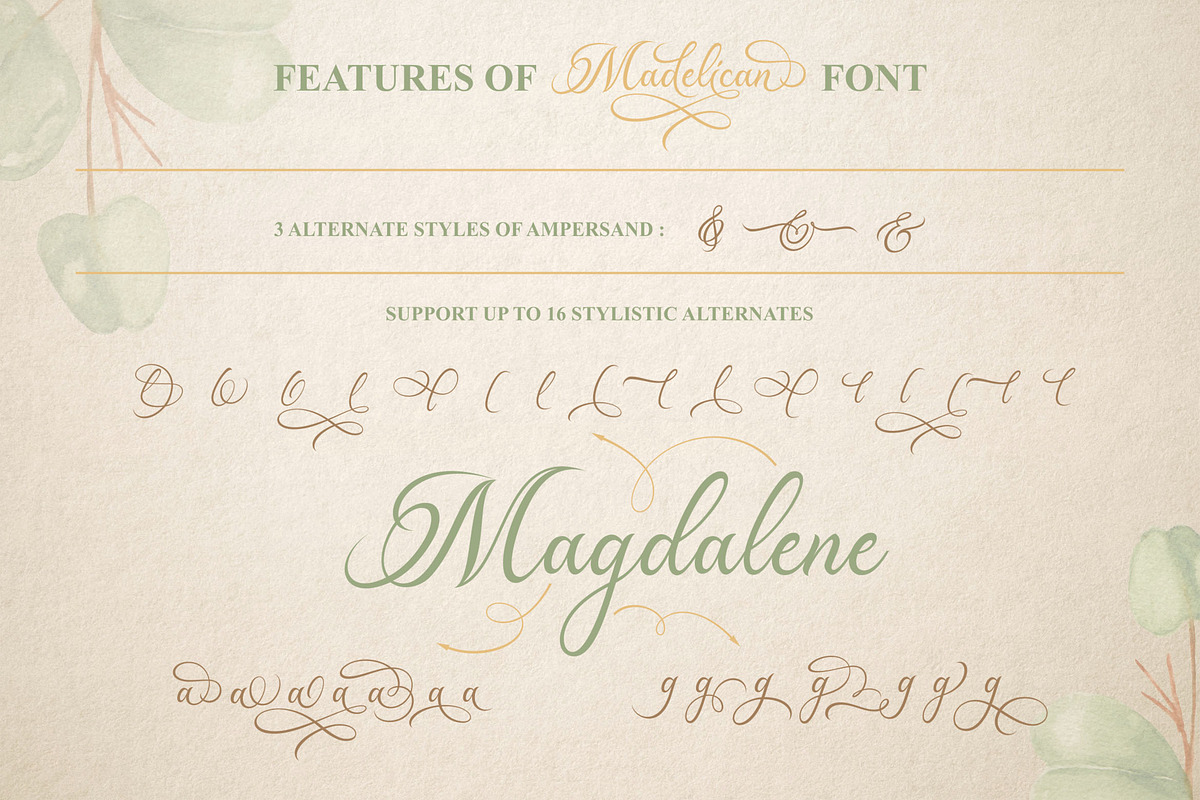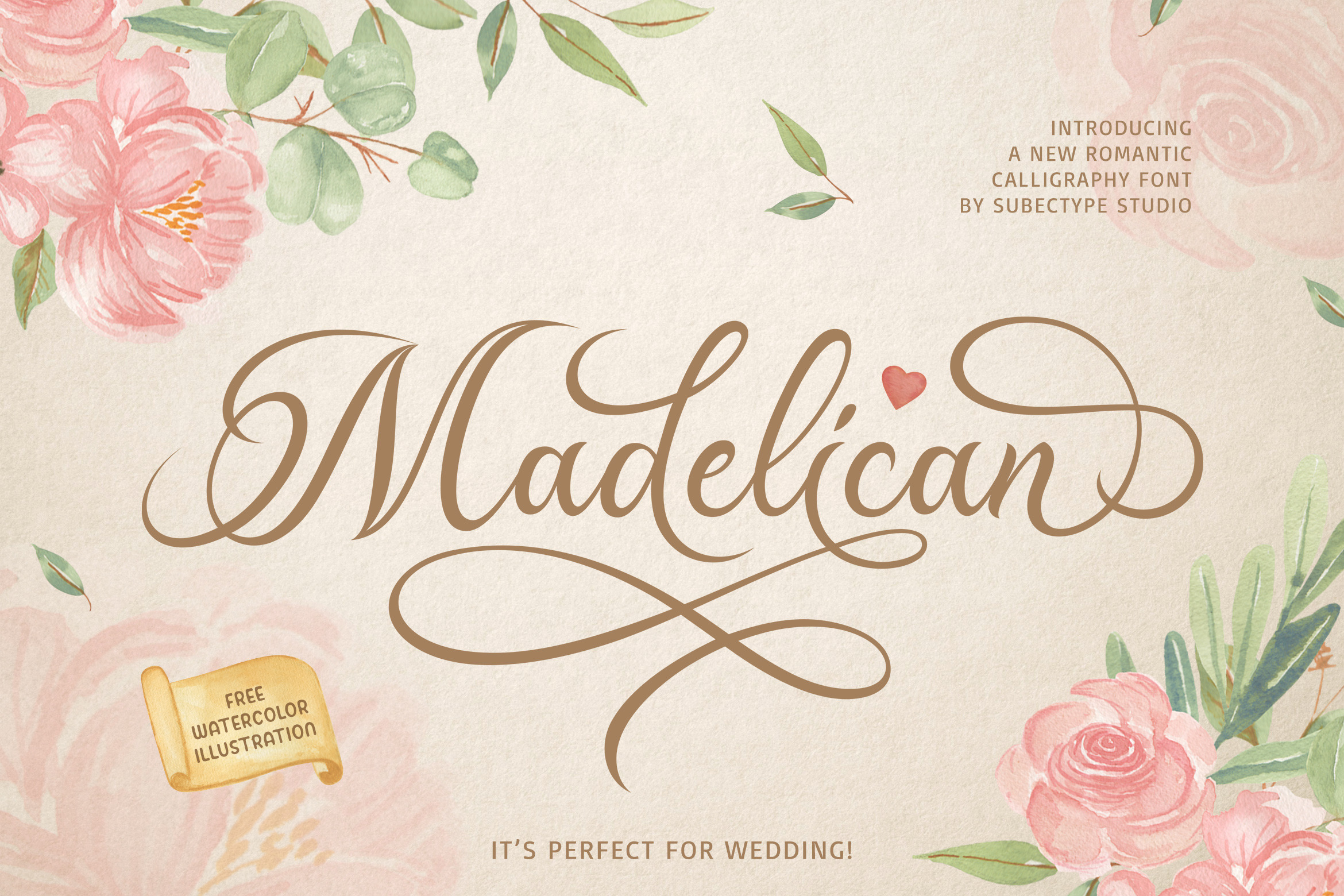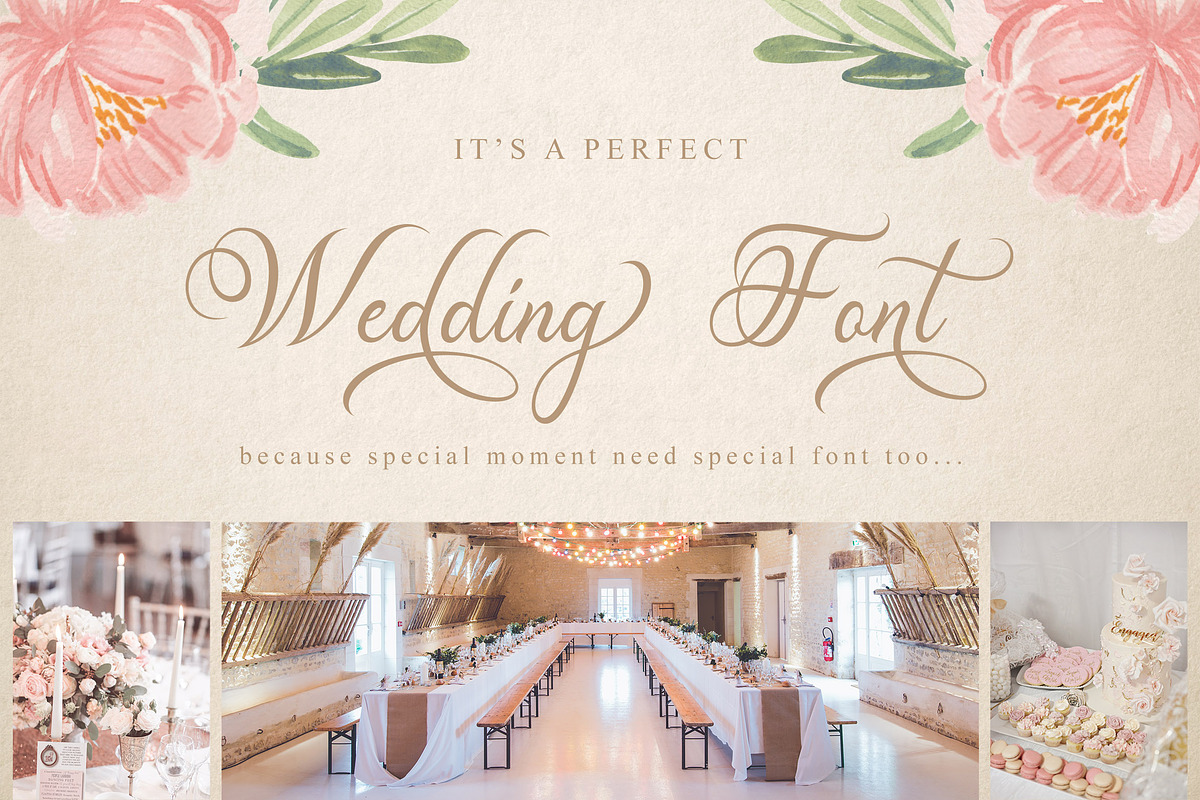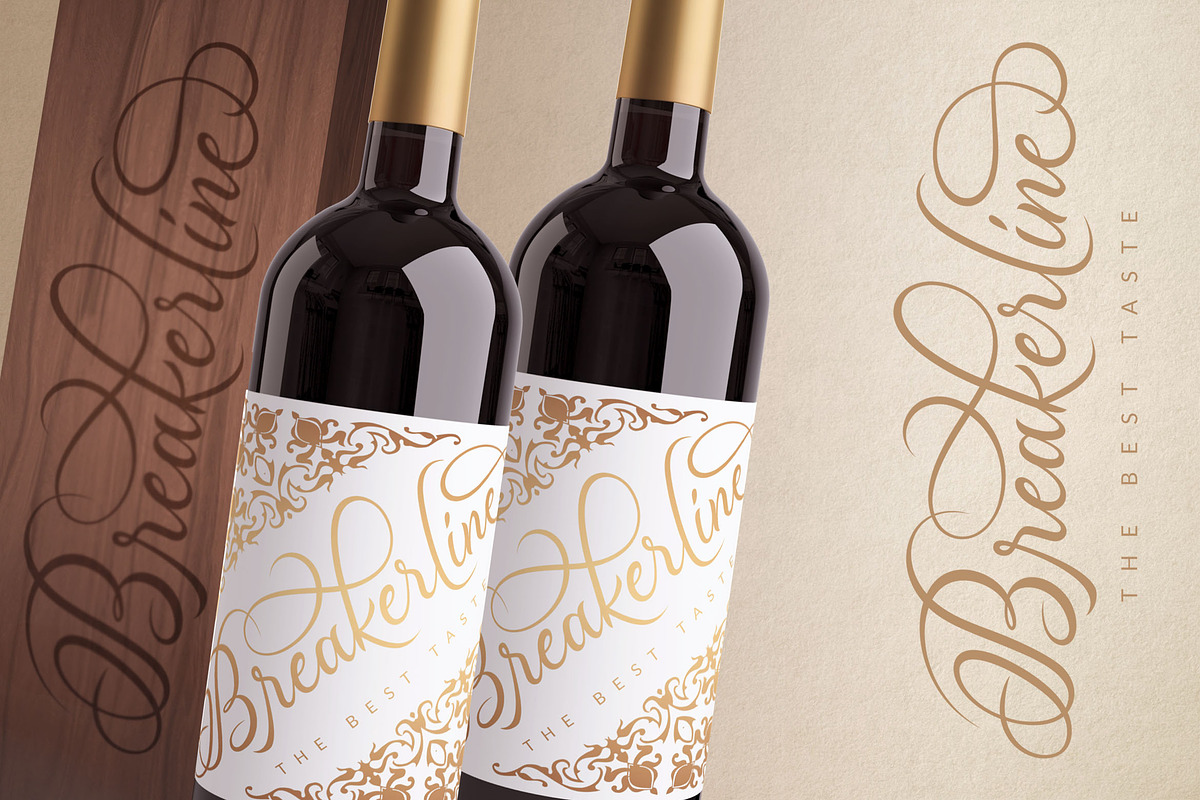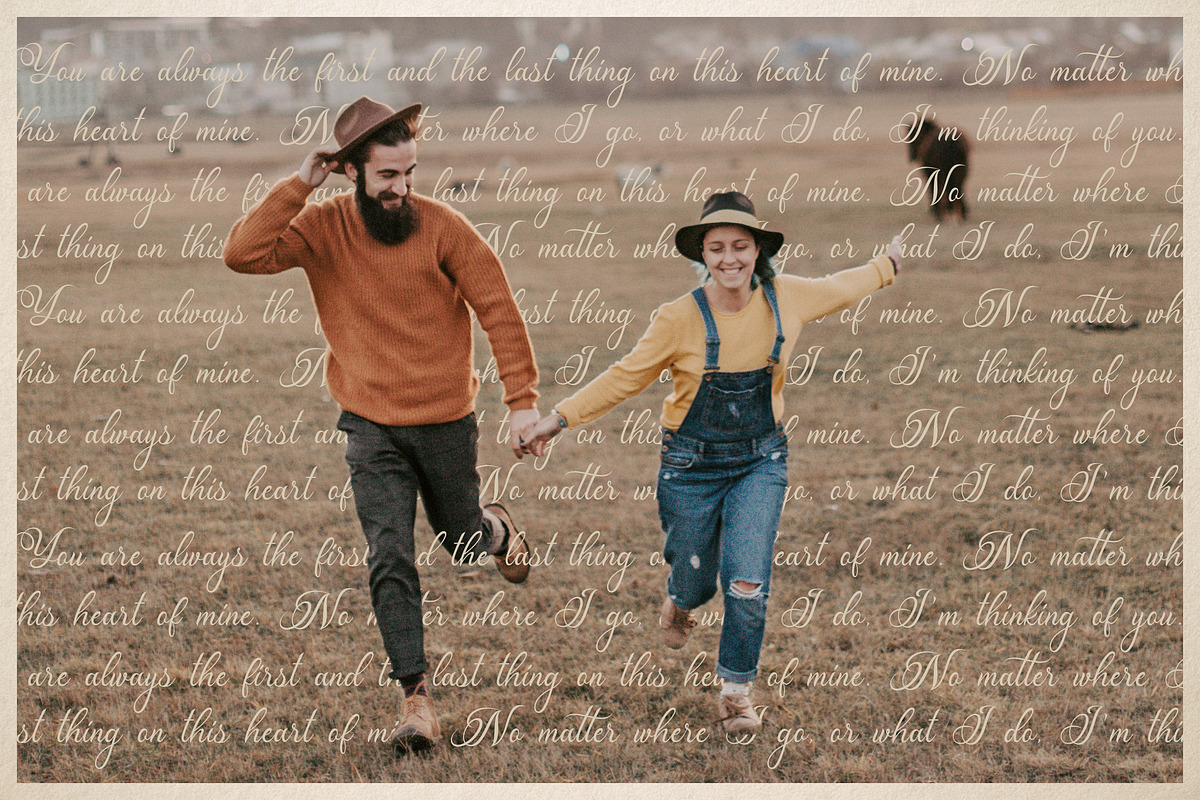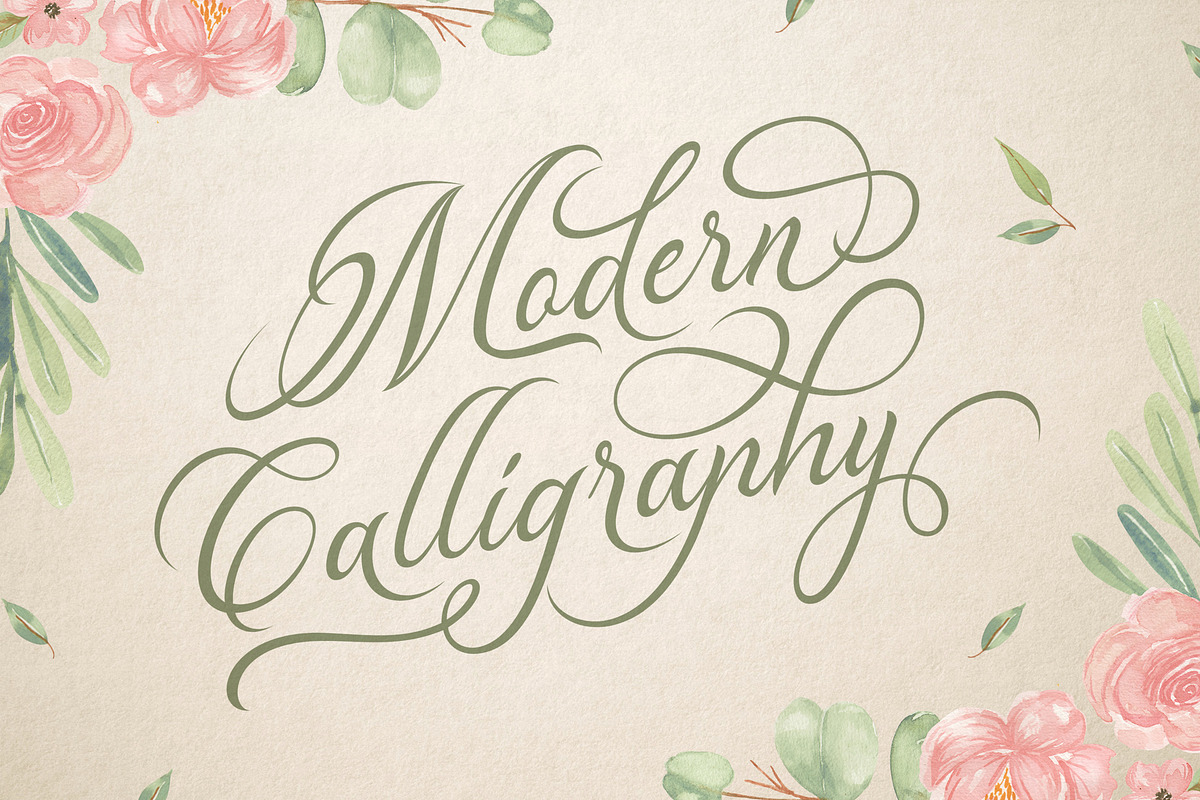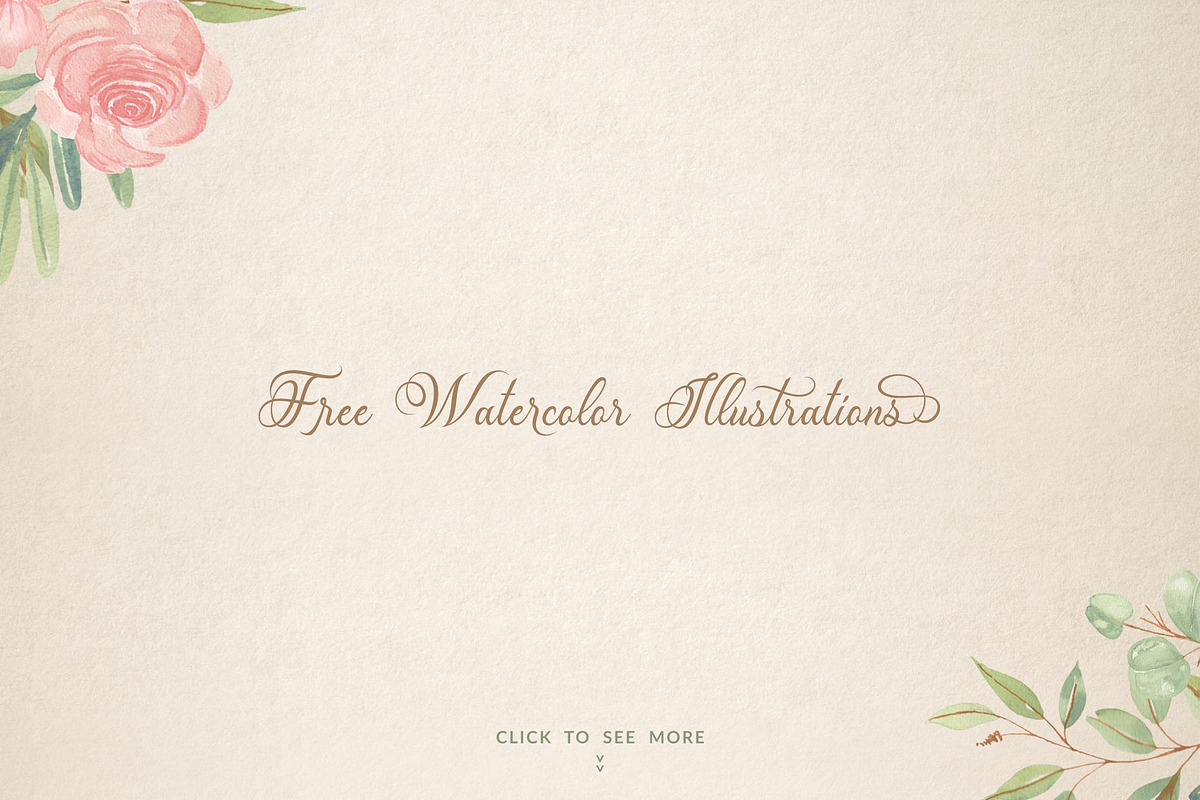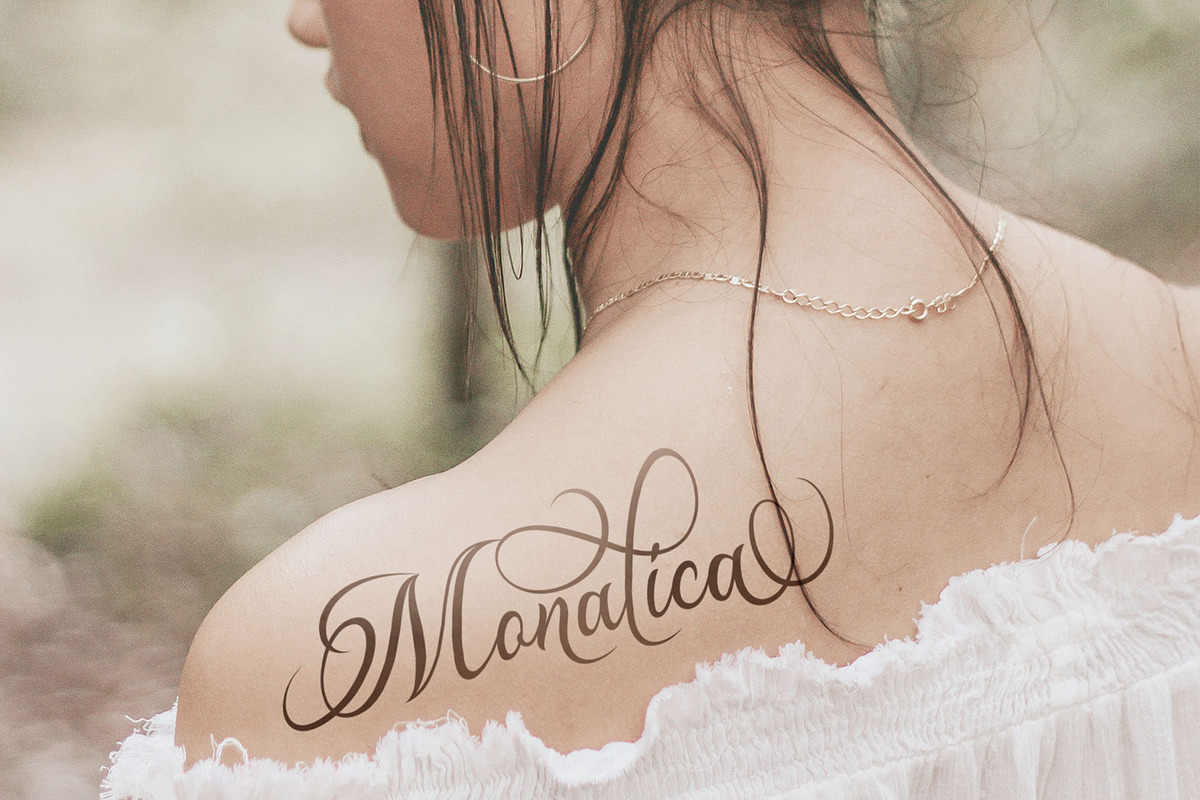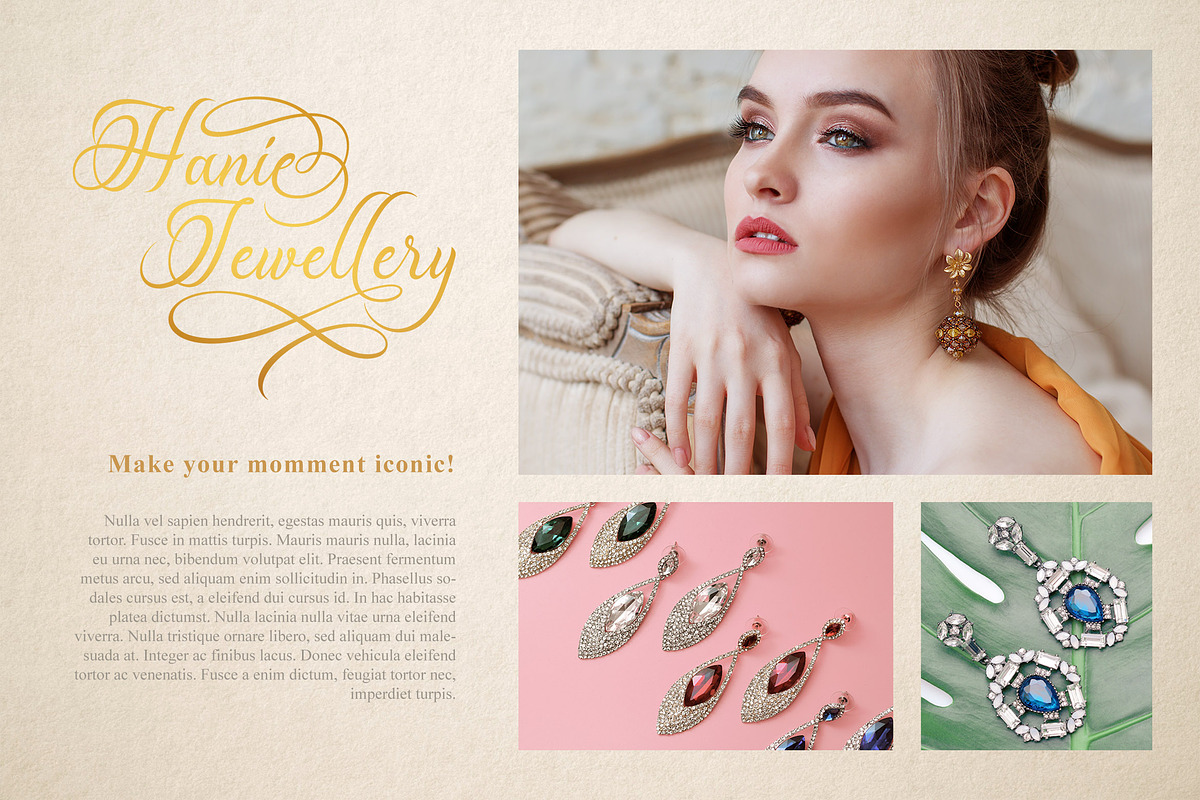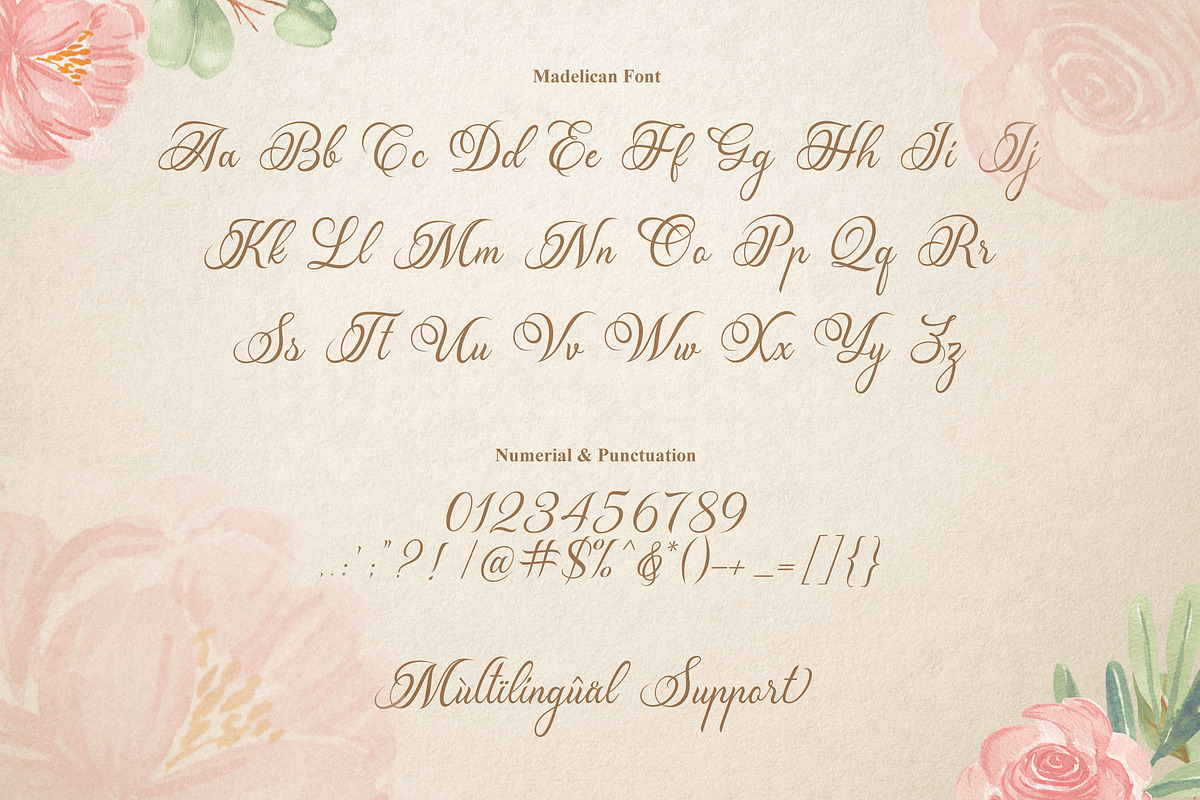
Madelican / Calligraphy Font
Hello. The Madelican Calligraphy Font is a beautiful combination of modern and classical calligraphy. Inspired by the handwriting of Italian women and ancient manuscripts. I think the calligraphy have an advantage for the alternate characters, It has a Tons of style for explore in just one letter. My exploration of this fonts as not easy as my imagination, it takes several trial and error for the perfect balance of the style. this font is very suitable for wedding, book covers, greeting cards, logos, branding, business cards and certificates, even for any design work that requires a classic, formal or luxurious.
Almost all letters have more alternate than others, it is fine because the limitations of the shape of the letters, it must readable and legible. Every letter that i've chose are only the best on it and fit with the character style.
multiligual support and support up to 16 stylistis alternates